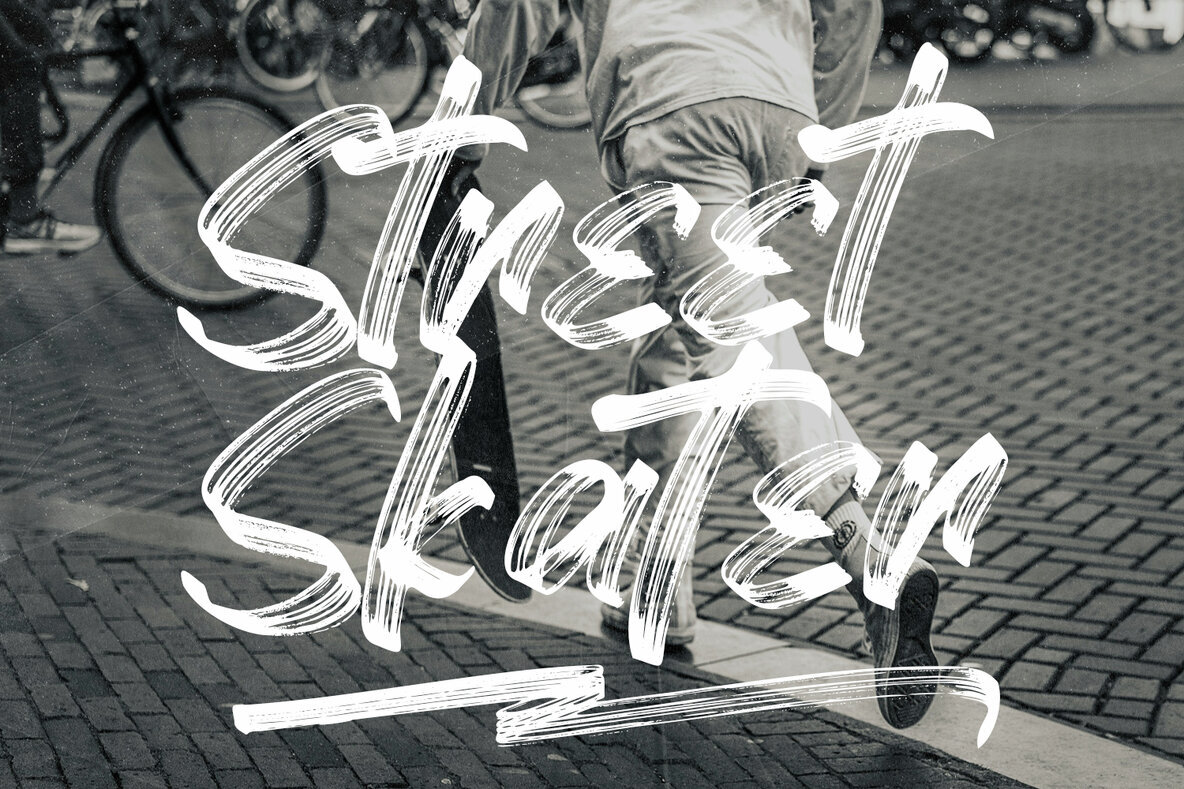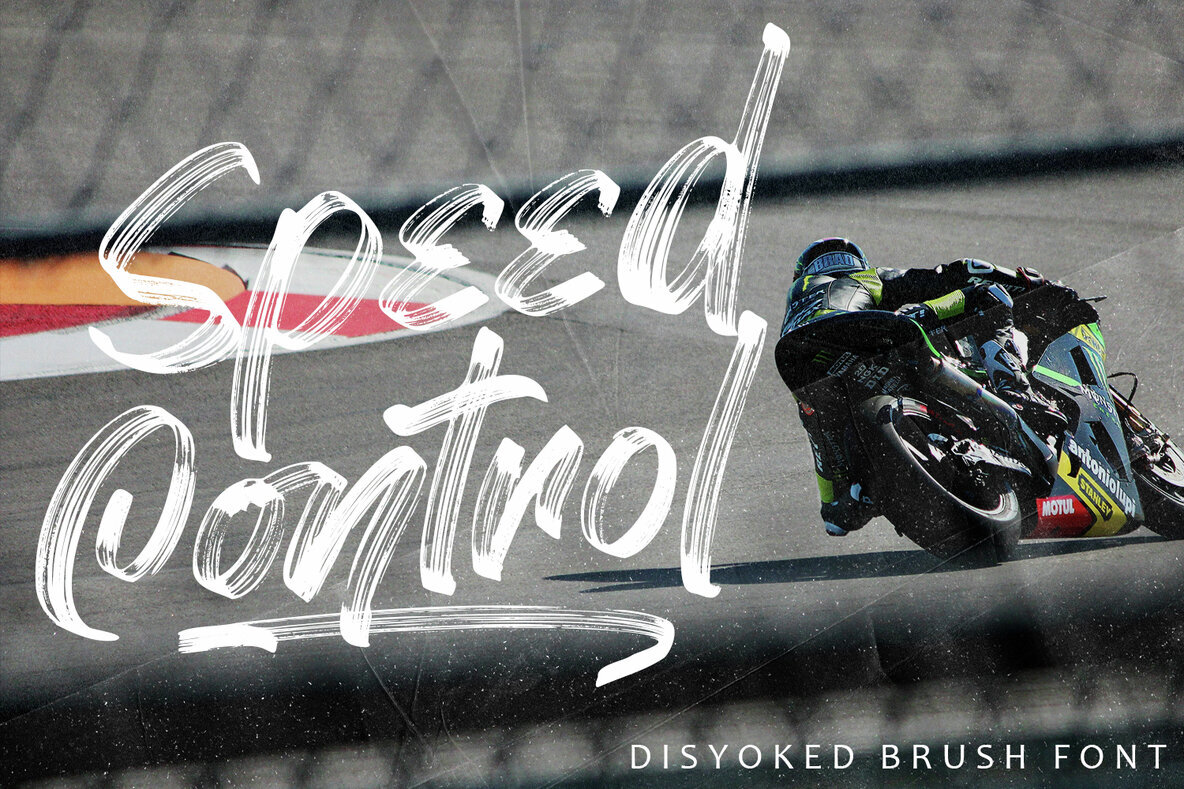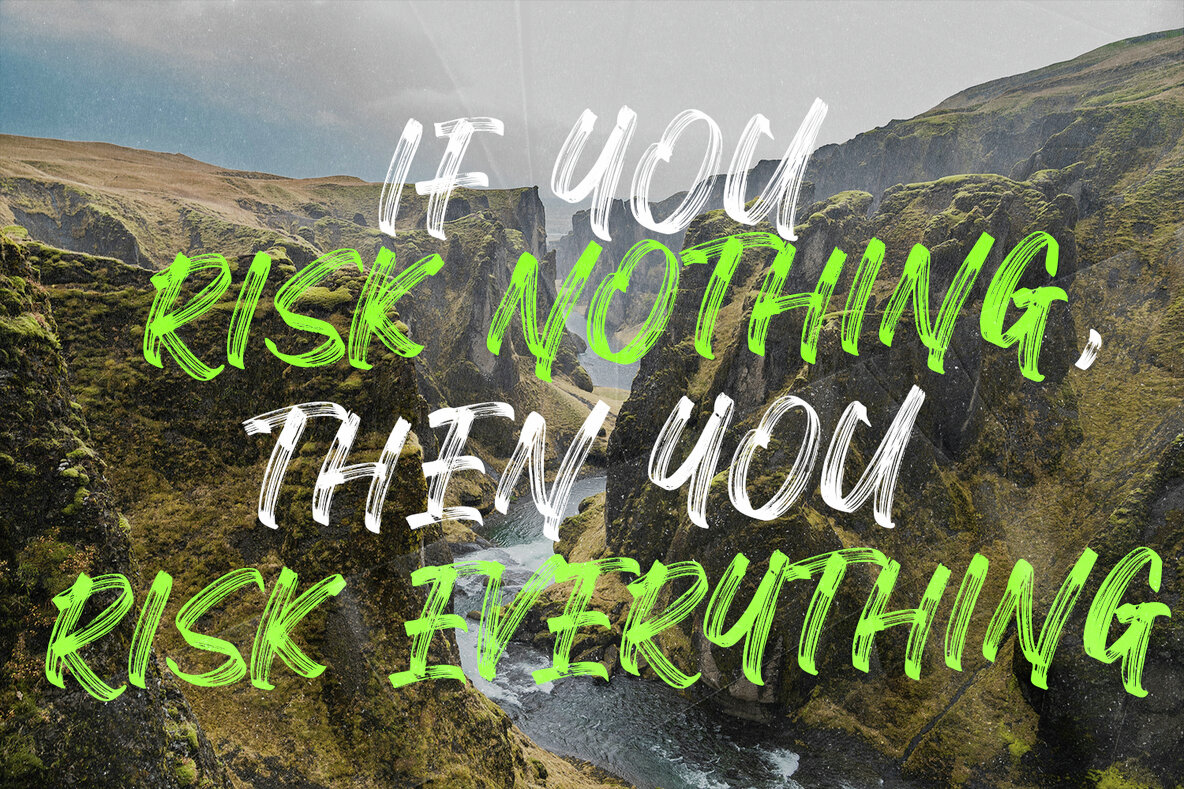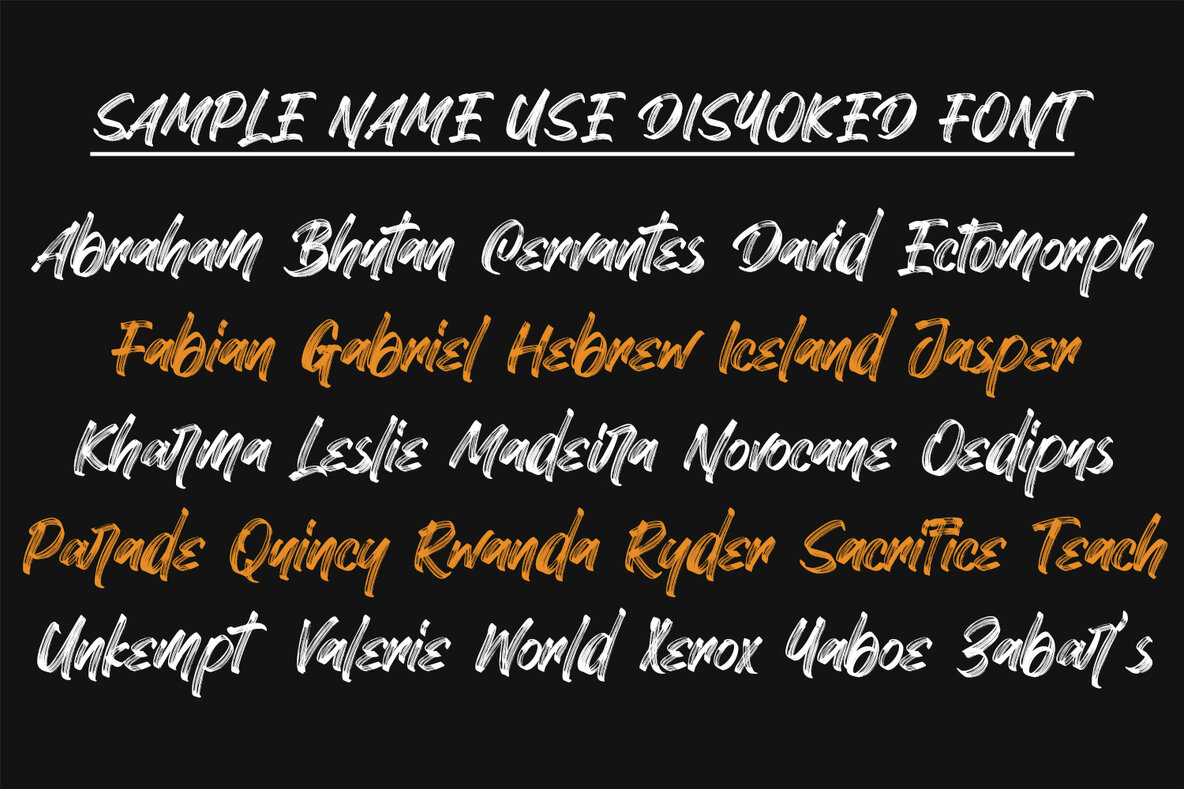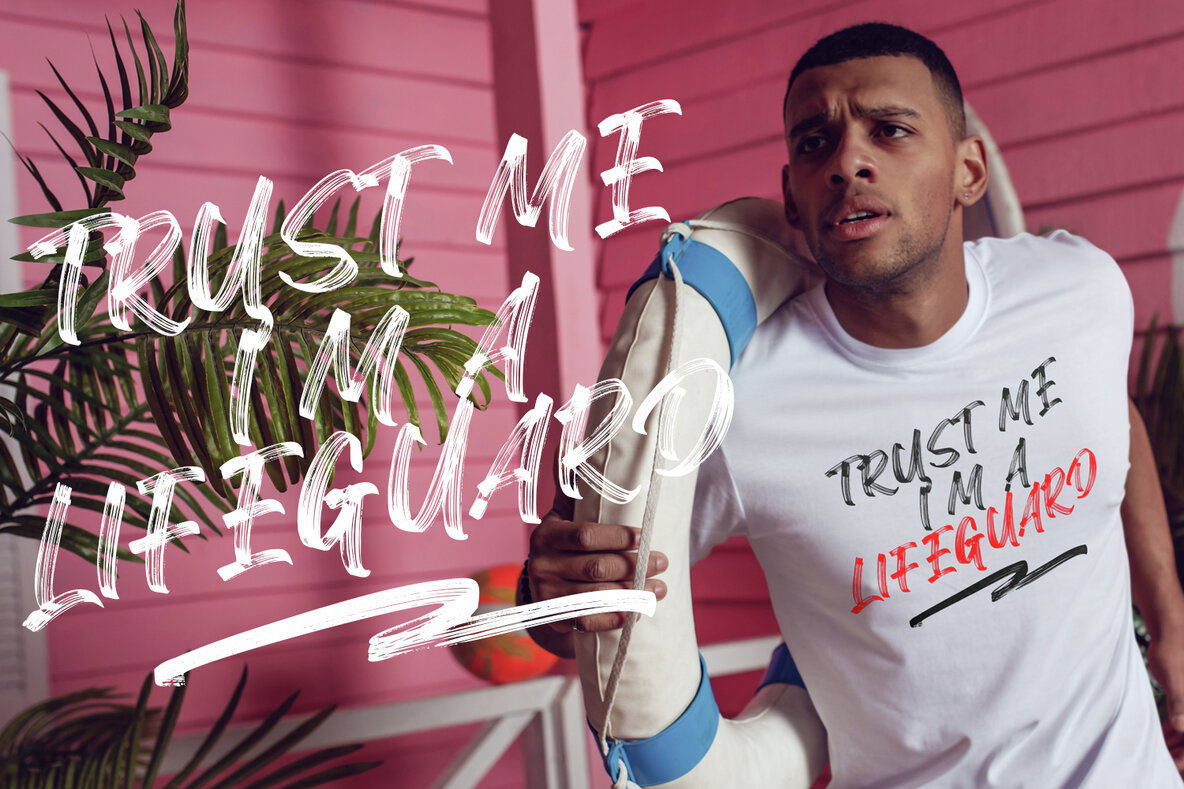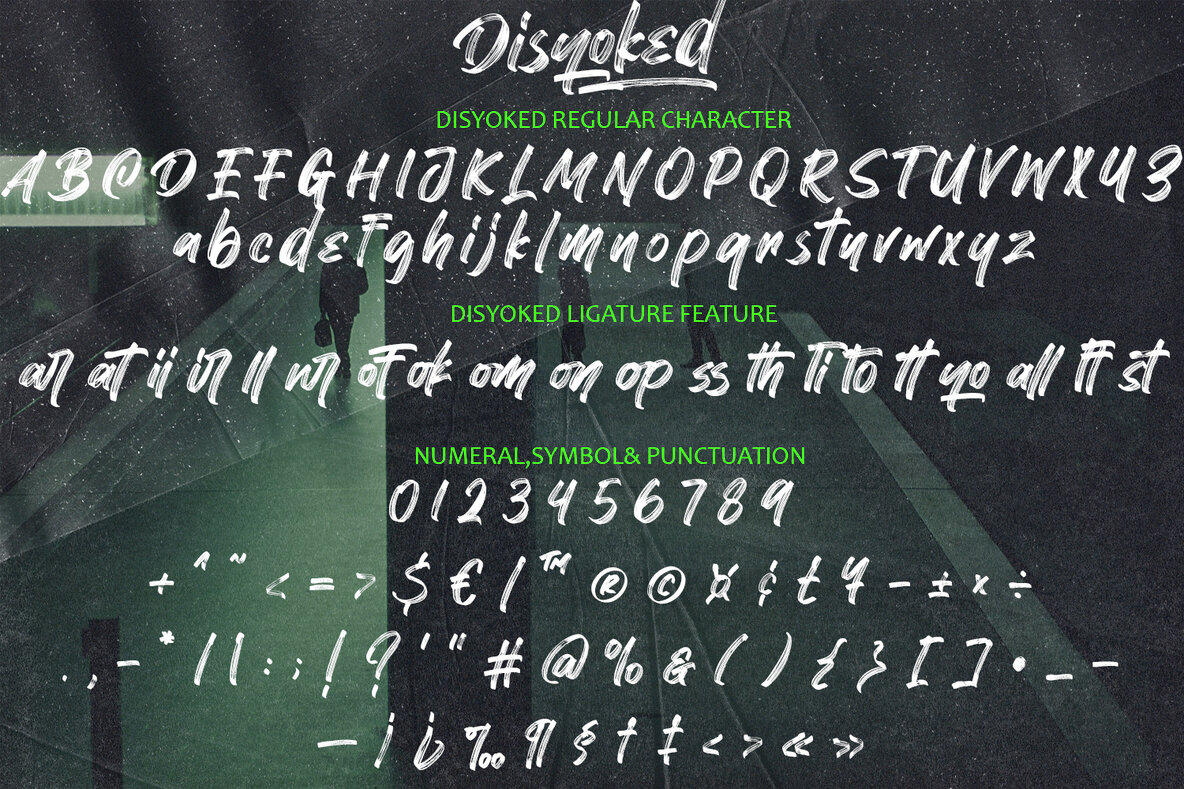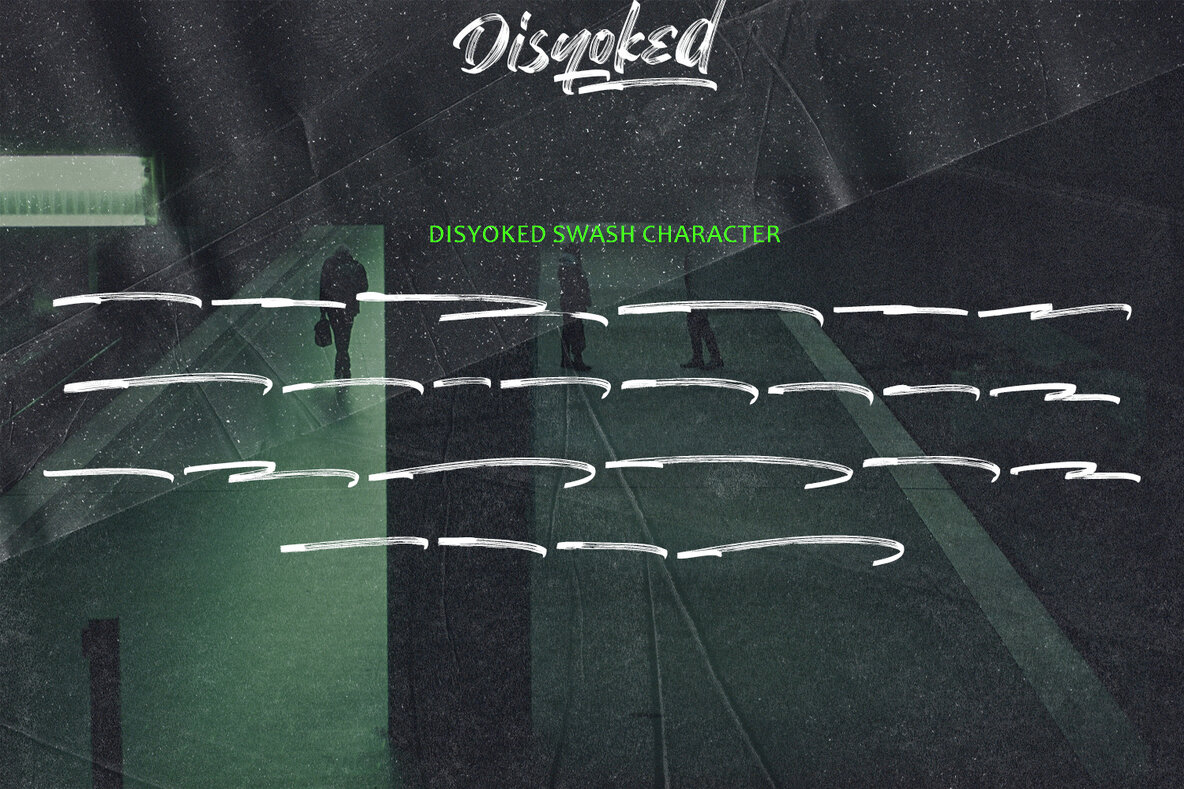
Disyoked Font
"Disyoked" is a textured brush font that brings the rustic charm of natural brush strokes into a non-script typeface. Inspired by traditional brush techniques, its letterforms emulate the dynamic and handcrafted feel of brush pen work. The textured elements embedded within each character simulate distressed or weathered strokes, infusing your designs with depth and visual interest. This unique combination of brush-inspired design and textured details results in a distinctive aesthetic that breaks away from the conventional serif or sans-serif categories, giving your work an artisanal and rugged appeal.
Despite its non-script nature, "Disyoked" commands attention with its bold and impactful presence, making it suitable for headlines, titles, and other prominent design elements. It offers a versatile solution for a wide range of projects, from branding and packaging to posters and apparel. The font's textured quality enhances visual interest, drawing viewers in for a closer look and engaging them on a tactile level. Its handcrafted appearance imbues designs with a touch of authenticity and relatability, offering flexibility for creating striking logos and decorative elements that resonate deeply. Furthermore, "Disyoked's" timeless ruggedness ensures it remains a relevant choice for designers looking to make a lasting impression with their typography.